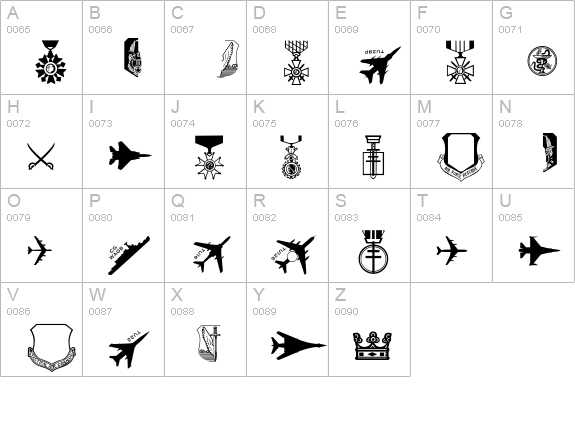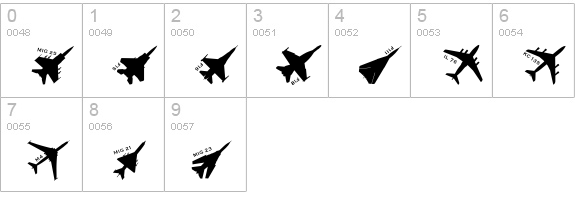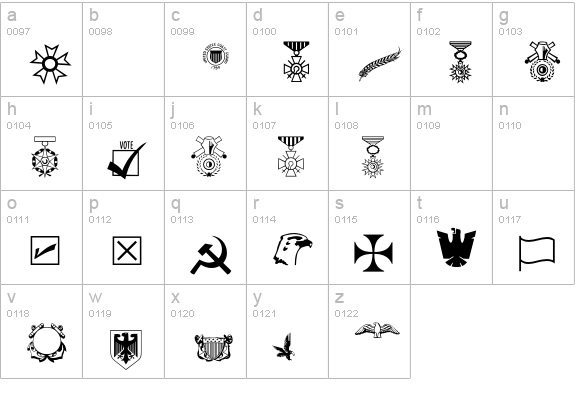
MilitaryPatrioticP01 font exudes strength, patriotism, and resilience with its bold and commanding design. This font is perfect for projects that require a touch of military or patriotic flair, making it a versatile choice for posters, banners, and more. Its rugged appearance and sharp edges convey a sense of authority and determination. What sets MilitaryPatrioticP01 font apart is that it is not only powerful in its visual impact but also free for all to use. This means that you can add a touch of patriotism to your designs without any cost restraints. You can freely download MilitaryPatrioticP01 font at FontsMarket.com and start incorporating its bold presence into your projects today. Let your creativity soar with this impactful and empowering font.